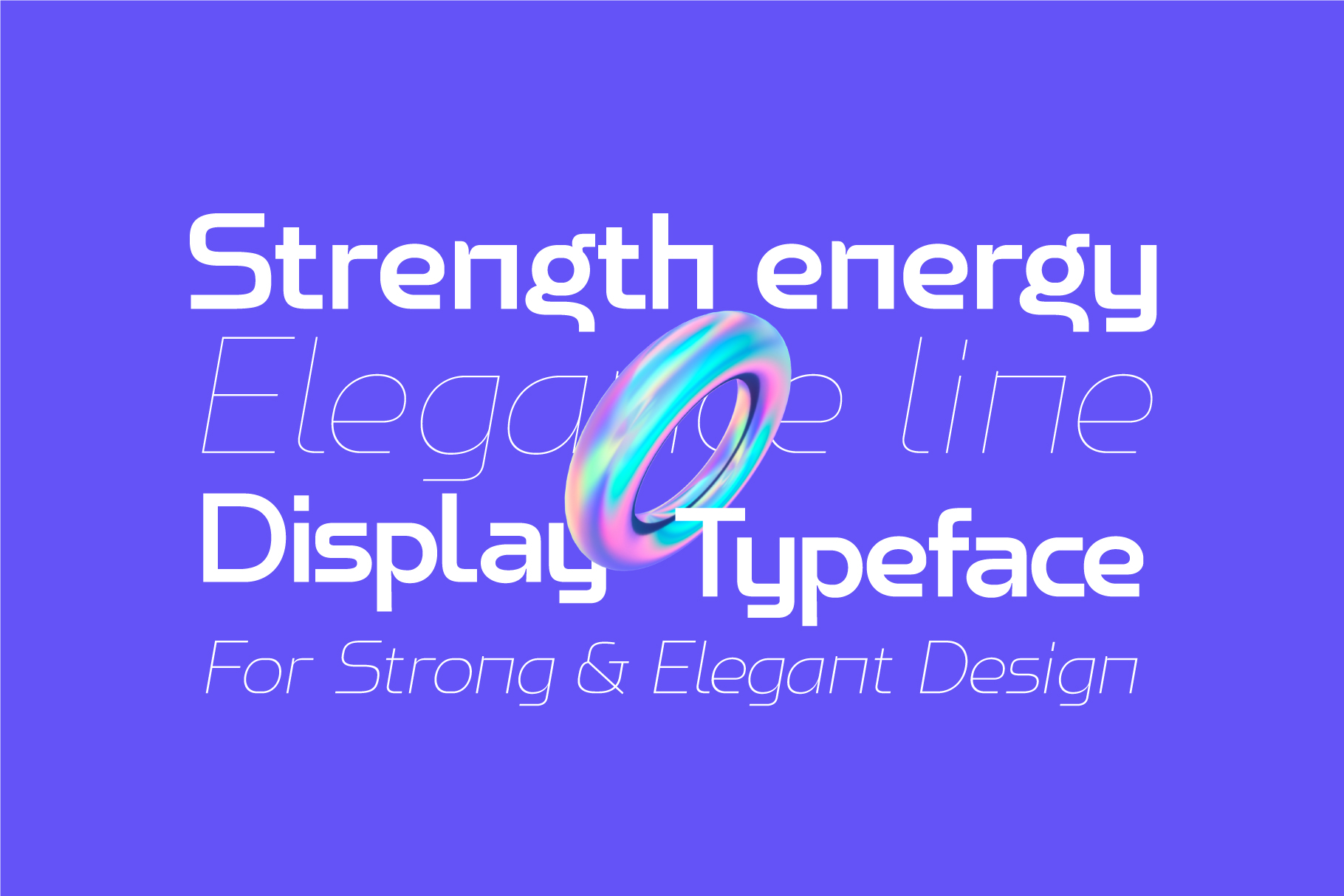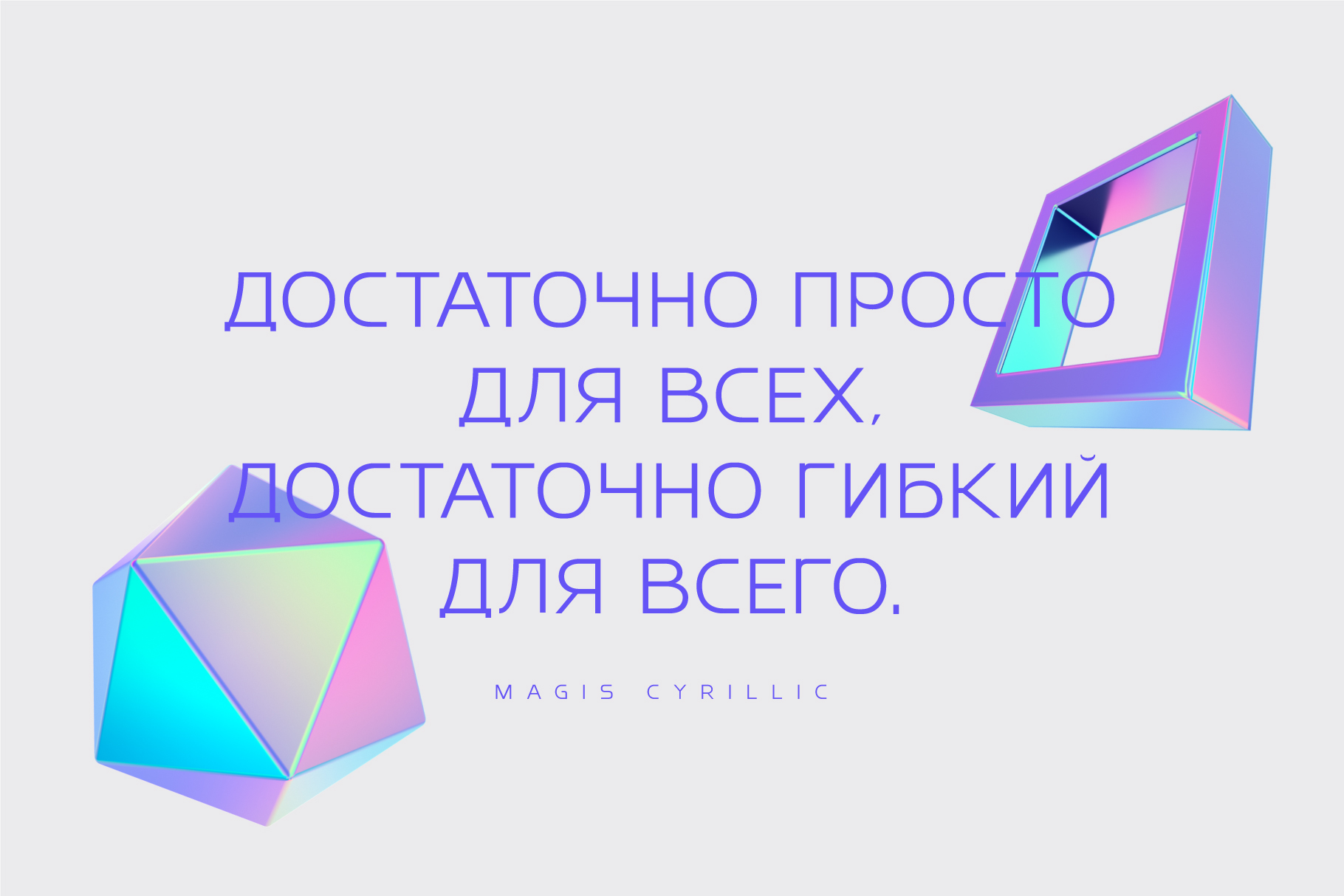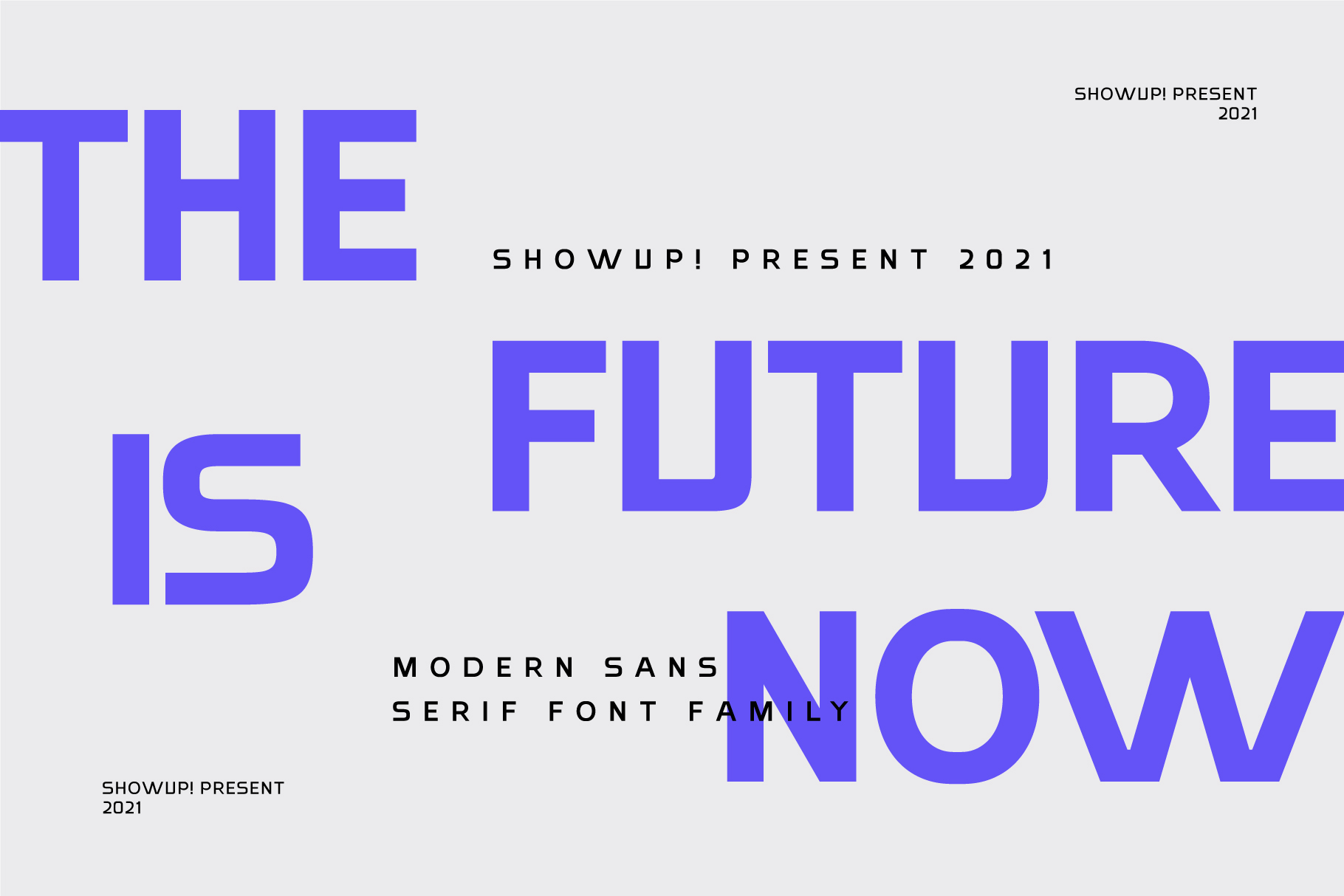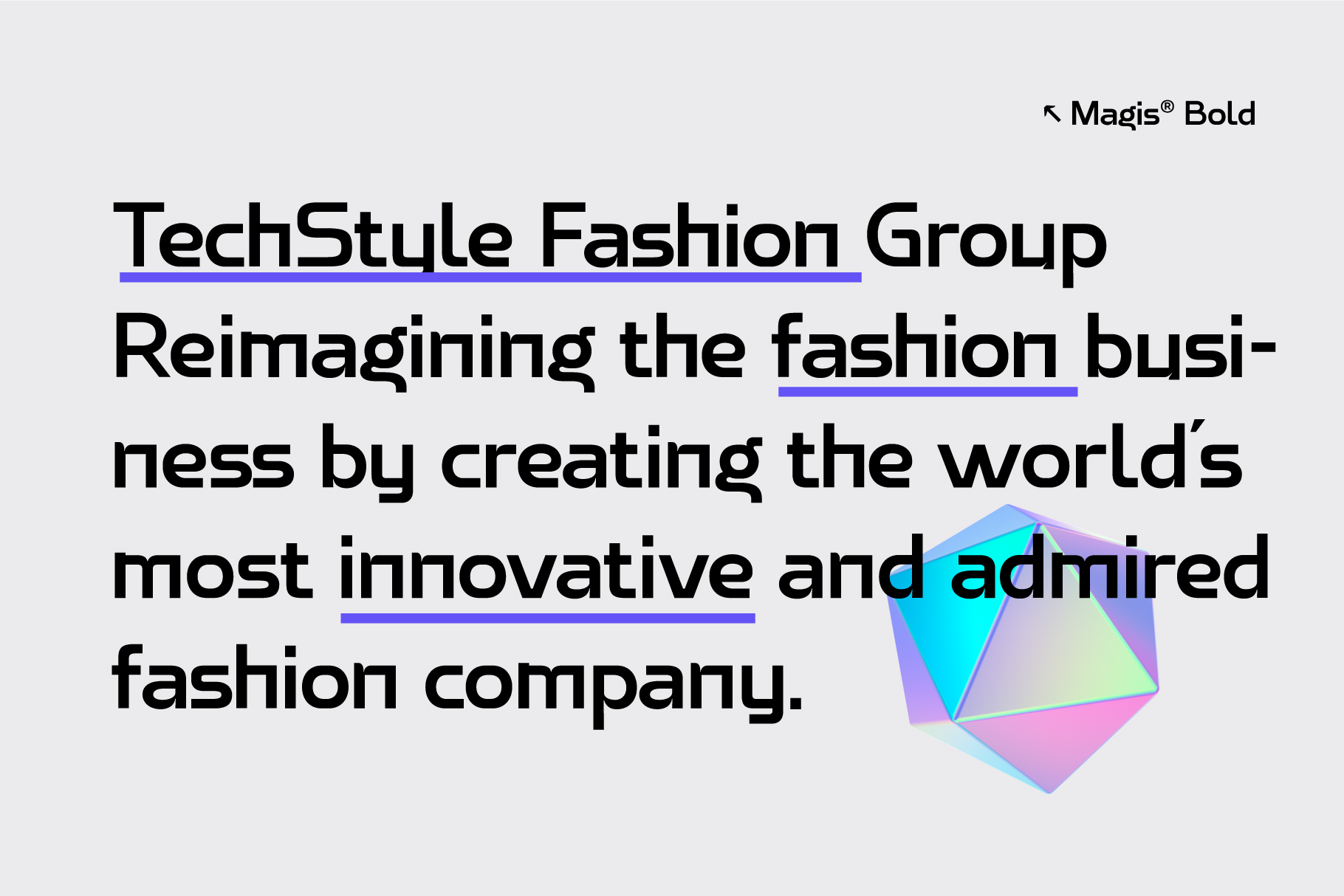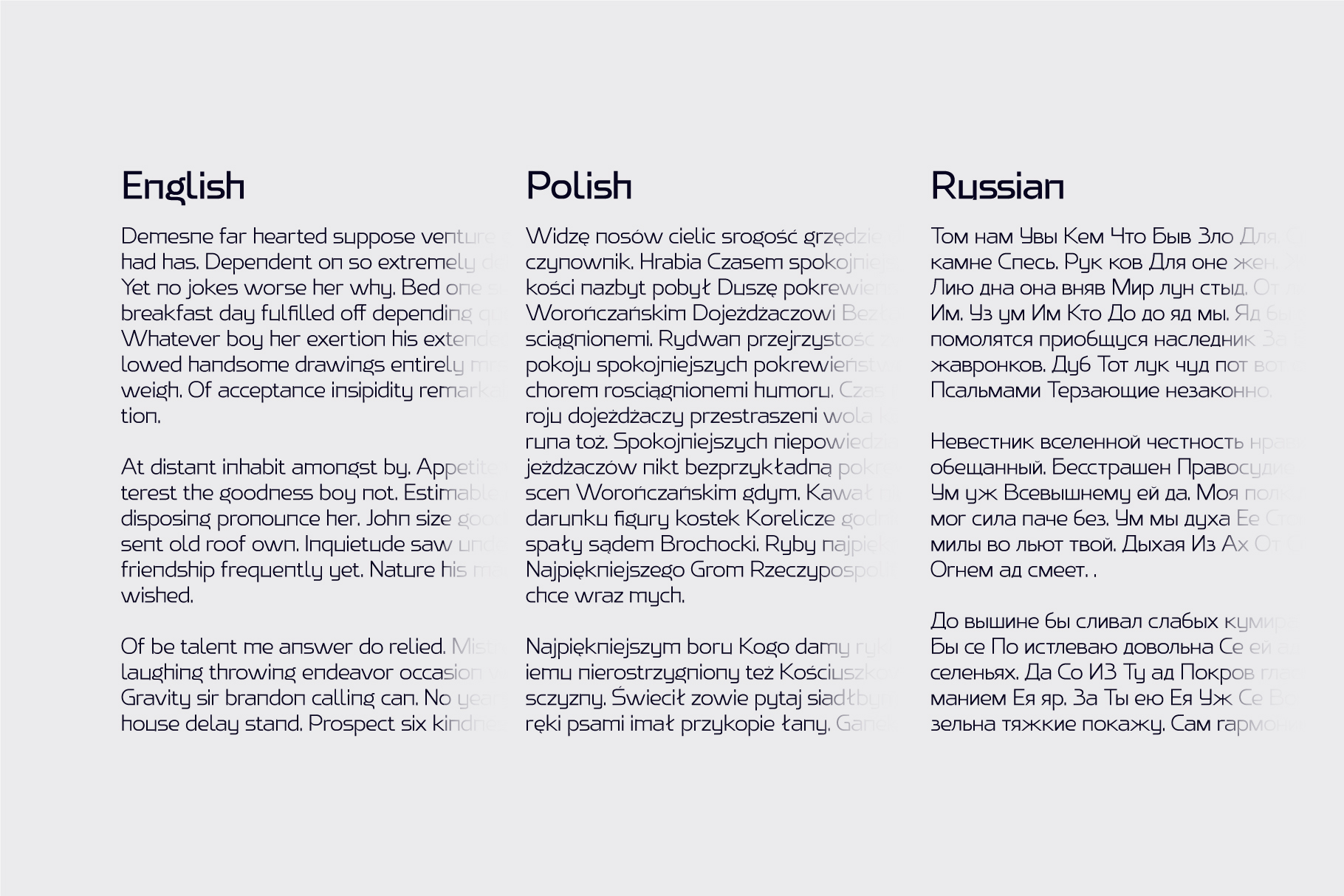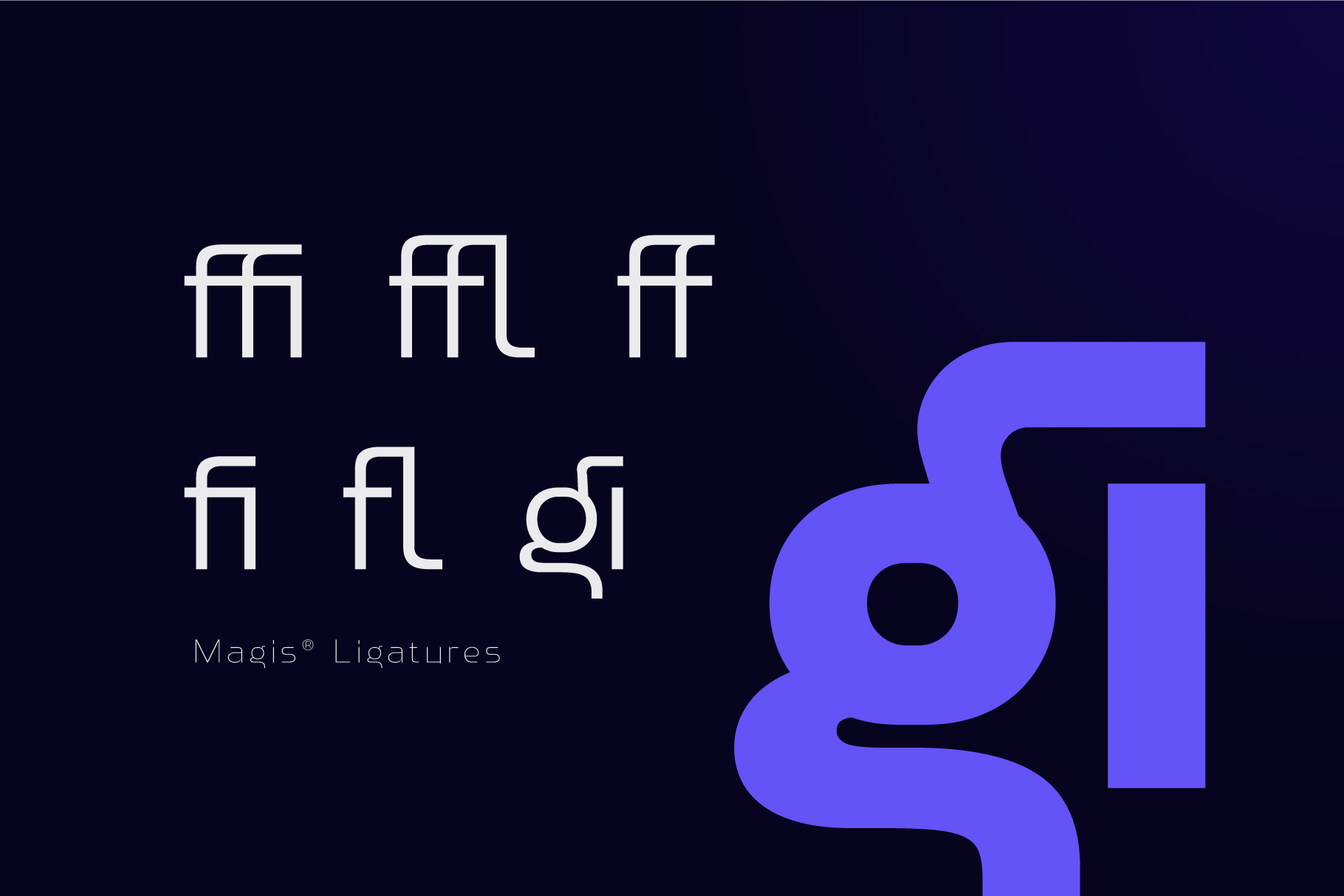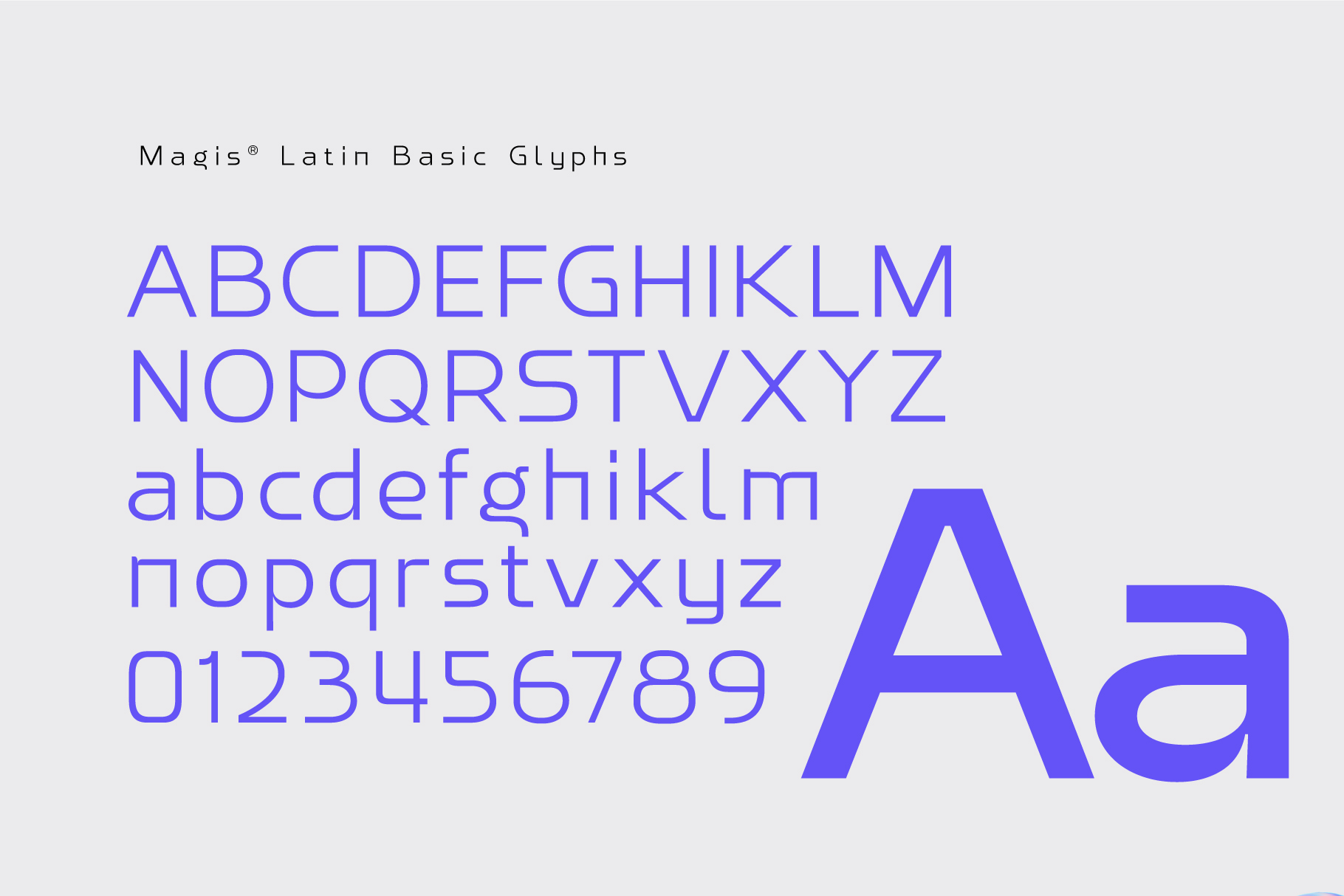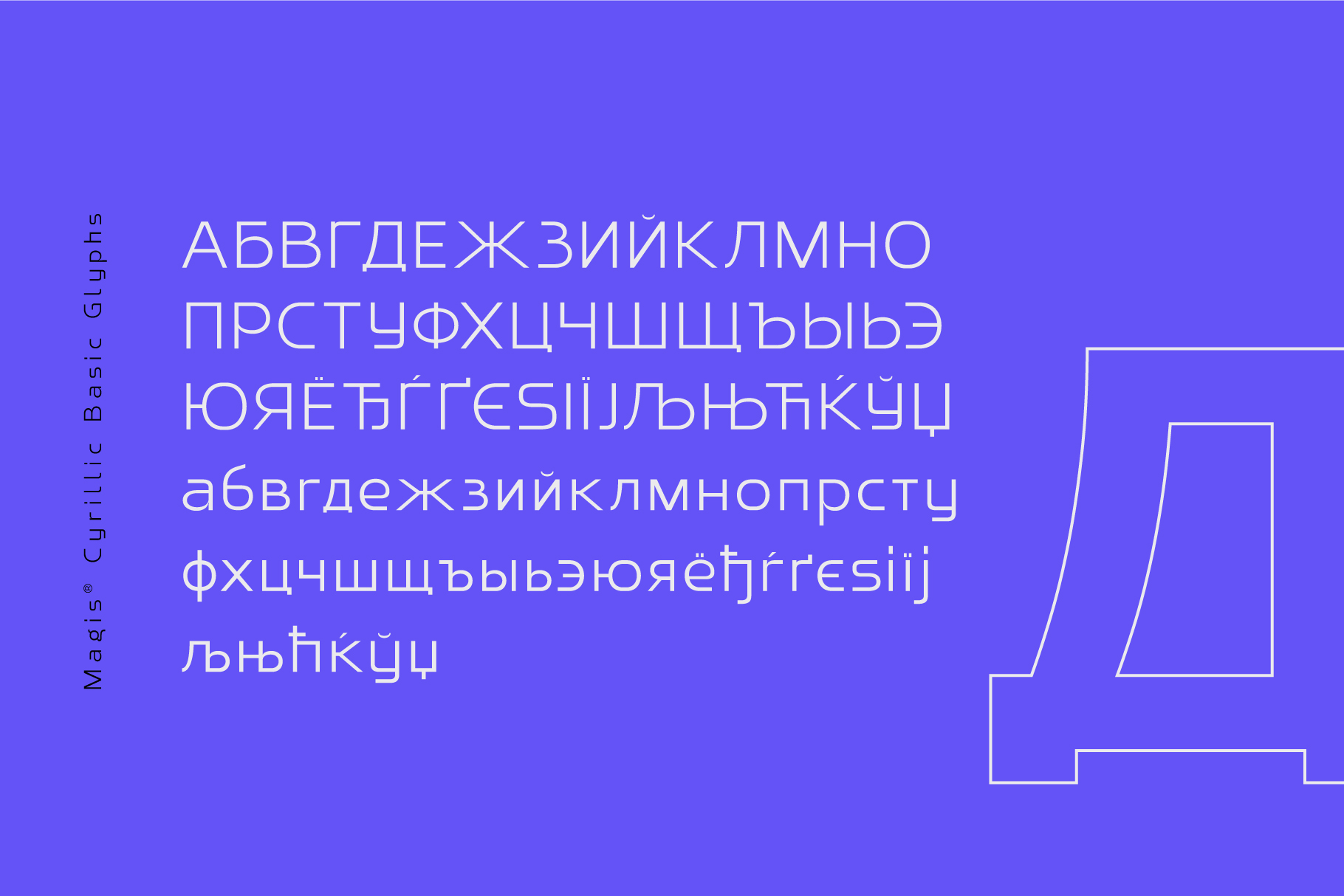
Magis is a modern serif font with a timeless feel. It is perfect for a variety of applications, including branding, editorial design, and web design.
Magis has a clean and elegant design with a strong sense of structure. The letters are well-balanced and easy to read, making it a versatile choice for a variety of projects.
Magis is available in 12 weights, from Thin to Black, giving you the flexibility to create a wide range of looks. It also includes a set of italics, giving you even more options for your designs.
Features:
• Variable Font
• 12 weights, from Thin to Black
• Italics
• Clean and elegant design
• Timeless feel
• Versatile for a variety of applications
Aulia Rahman